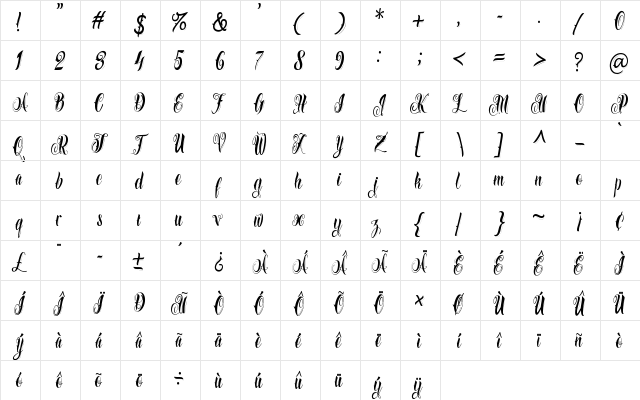
Azkanio Script Regular
| Designer | Ondi Indriana |
Design Context for Azkanio Script Typeface
Azkanio Script brings a calligraphic fluidity to the page — its connecting strokes and expressive curves give it an unmistakably human quality.